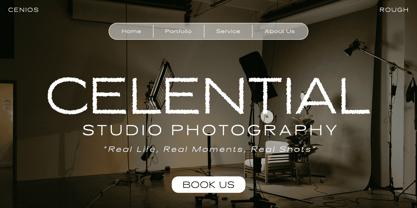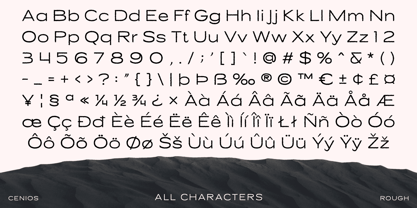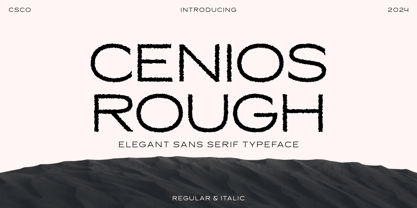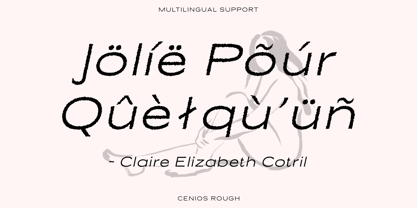
Cenios Rough
by Craft Supply Co
The Cenios Rough Font Family was designed by Trio Nazzar Saputra, Wahyu Hadi Yuana and published by Craft Supply Co. Cenios Rough contains 2 styles and family package options.
Cenios Rough: Modern Sans Serif Font
Contemporary Style with a Rugged Texture
Cenios Rough is a modern sans serif font featuring expanded letterforms with a rough effect. This unique blend of contemporary style and rugged texture makes it ideal for bold and dynamic designs.
Dynamic and Edgy Design
With its expanded letterforms and rough effect, Cenios Rough creates a dynamic and edgy appearance. Each character is designed to stand out, adding a striking and textured element to your typography.
Perfect for Bold Projects
Ideal for bold branding, posters, and standout editorial designs, Cenios Rough enhances your projects with its contemporary and rugged charm. Whether used for logos, promotional materials, or magazine layouts, this font brings a sense of modern sophistication and raw artistic flair to your designs.
Elevate Your Designs with Cenios Rough
Choose Cenios Rough to elevate your designs with a modern sans serif font that combines expanded letterforms and rugged texture. This font ensures your projects achieve a bold and dynamic look, making them stand out with a unique and edgy appeal.
Designers: Trio Nazzar Saputra, Wahyu Hadi Yuana
Publisher: Craft Supply Co
Foundry: Craft Supply Co
Design Owner: Craft Supply Co